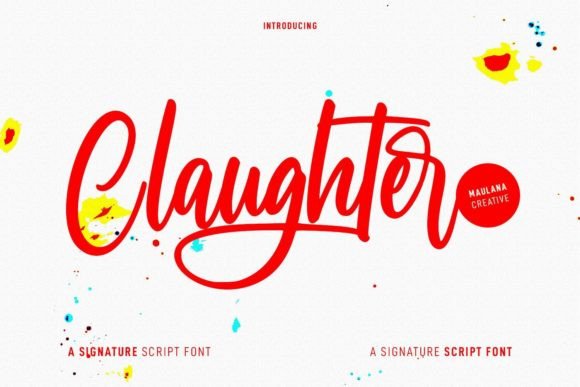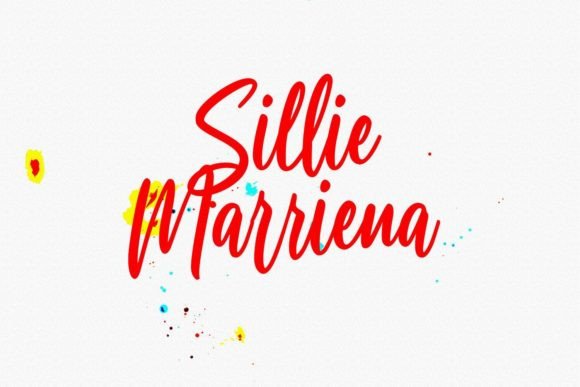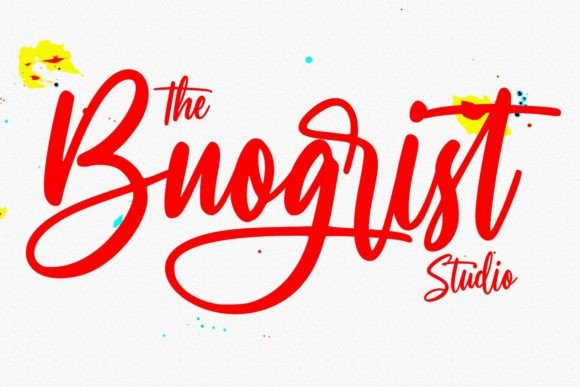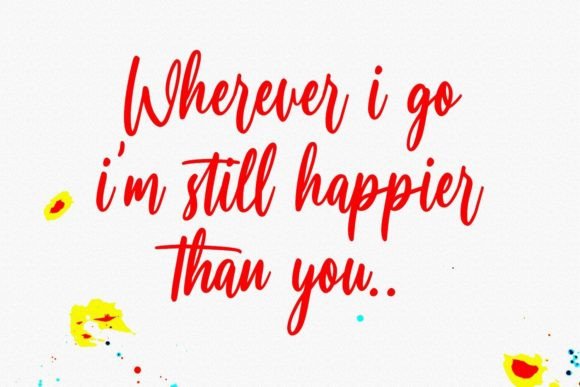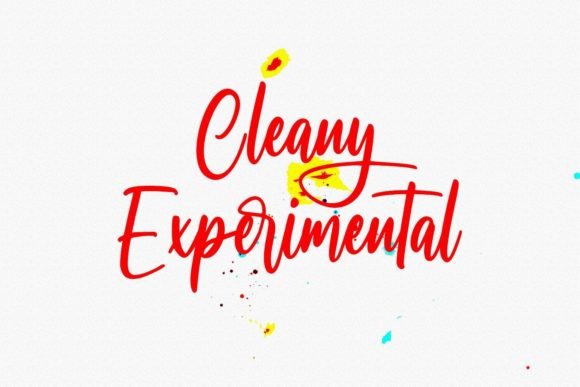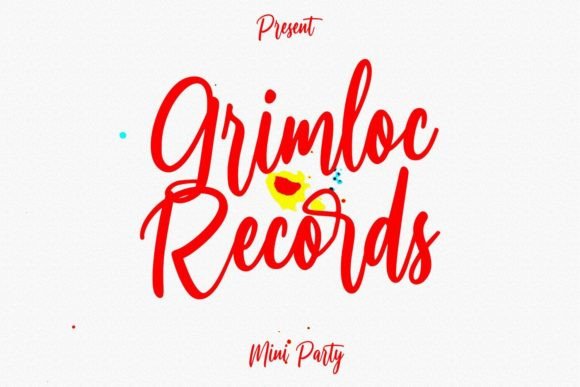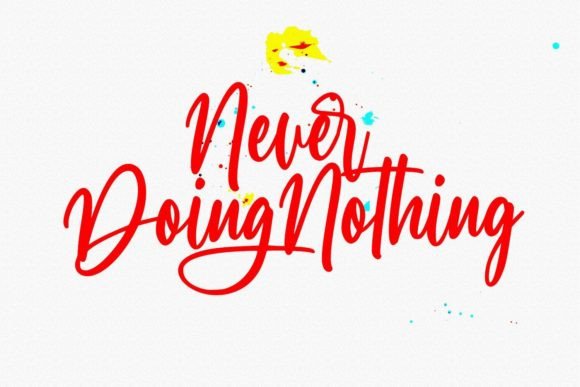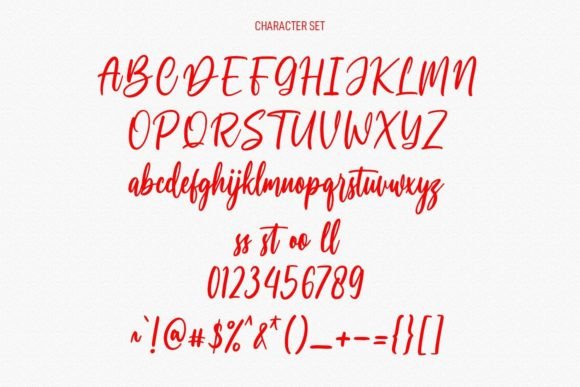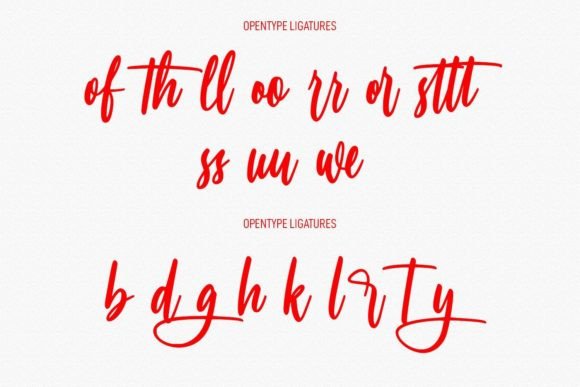
Claughter Font
About Claughter Font
Cllaughter introduces itself as a modern and casual signature script font, exuding a contemporary and fresh vibe. Perfect for a myriad of design possibilities, this font is an ideal choice for anyone looking to add a touch of modern elegance to their creative projects. Incorporate Cllaughter into your designs, and watch as it elevates them to an outstanding level.
The modern and casual nature of Cllaughter makes it a versatile companion for various design contexts. Its signature script style brings a personal touch, making it suitable for a range of applications, from branding and logos to social media graphics and more. The font becomes a distinctive element that contributes to the overall uniqueness of your creative projects.
Whether you’re working on a professional design or a casual, contemporary piece, Cllaughter is designed to complement and enhance your vision. Its fresh aesthetic ensures that it remains relevant in modern design trends, making it a valuable asset in your font collection.
In conclusion, Cllaughter is not just a font; it’s a tool for making your creative projects outstanding. Whether you’re a seasoned designer or an enthusiast exploring the world of modern typography, let Cllaughter be the signature script that adds a contemporary flair to your designs. Embrace its modern and casual style, and witness how it transforms your creative endeavors into visually striking and memorable works of art.